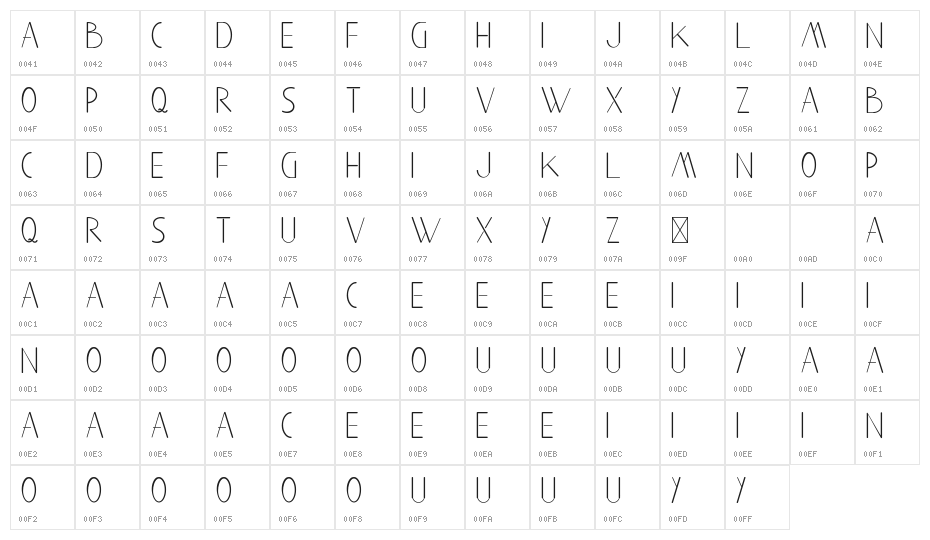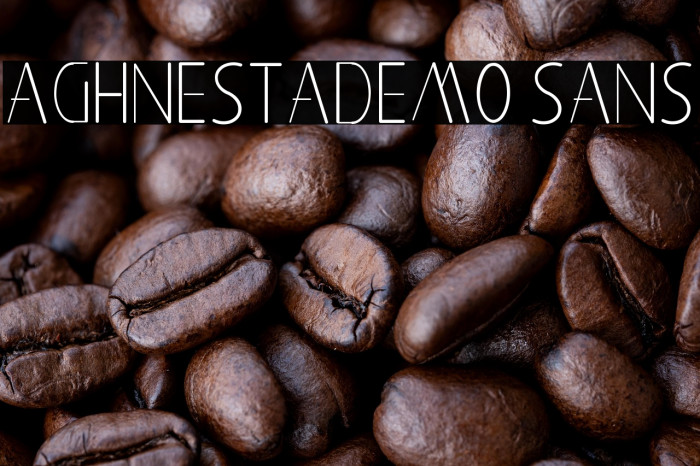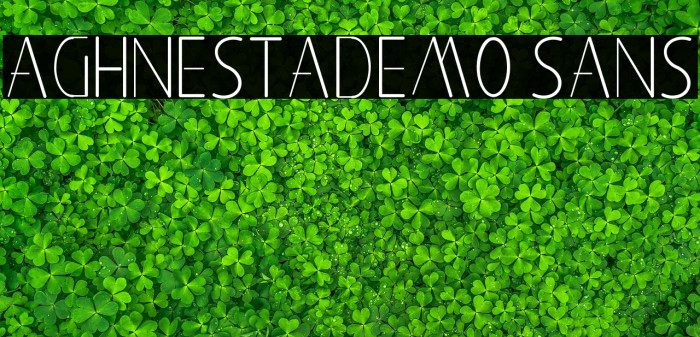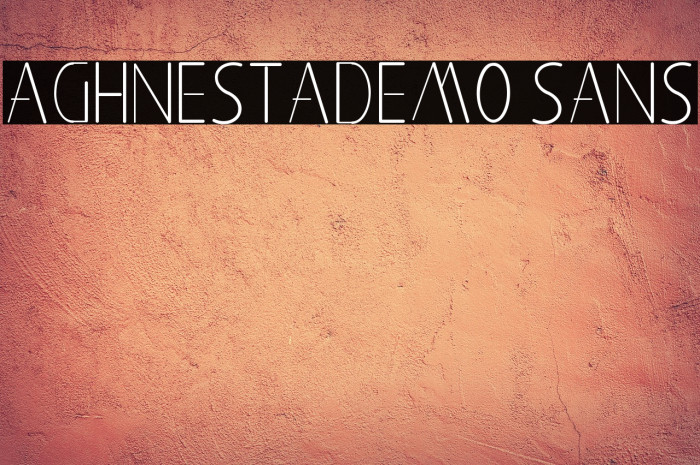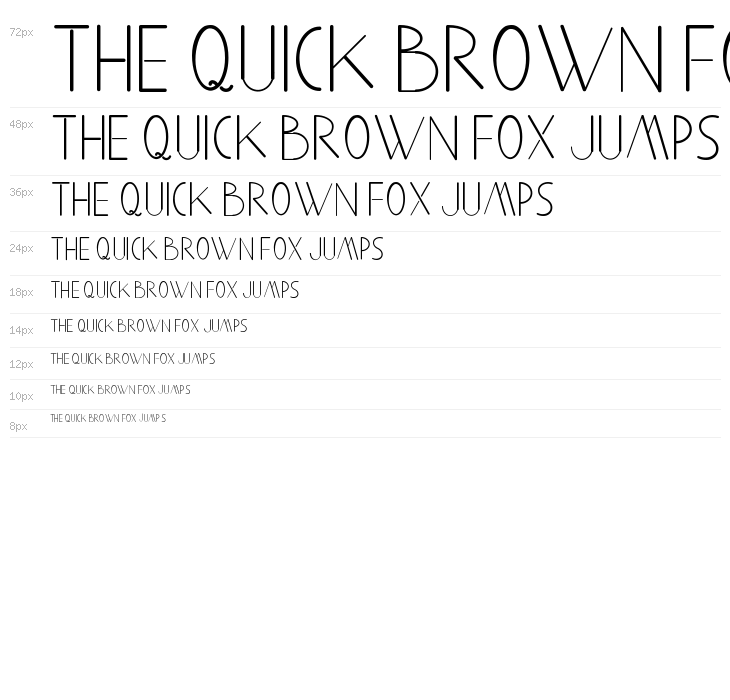
Aghnestademo Sans Font
Aghnestademo Sans Description
This font features a sleek and modern sans-serif design with a unique twist on traditional letterforms. The characters are tall and narrow, with a consistent stroke width that gives a clean and minimalist appearance. The uppercase letters have a distinctive geometric style, while the lowercase letters maintain a similar aesthetic with slightly rounded edges. The font includes a full set of uppercase and lowercase letters, numbers, and a selection of special characters. Its design is both elegant and contemporary, making it suitable for a variety of design projects.